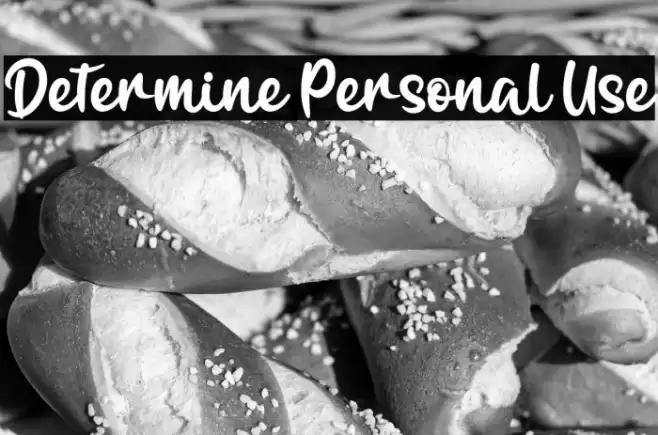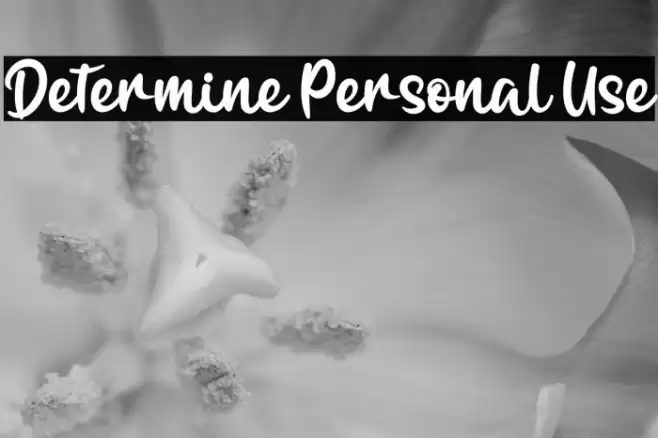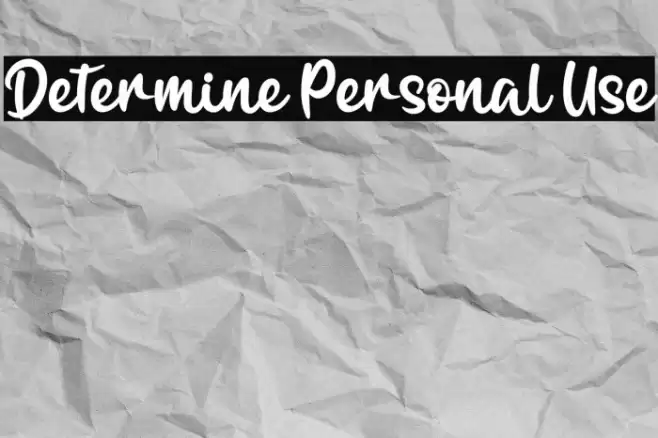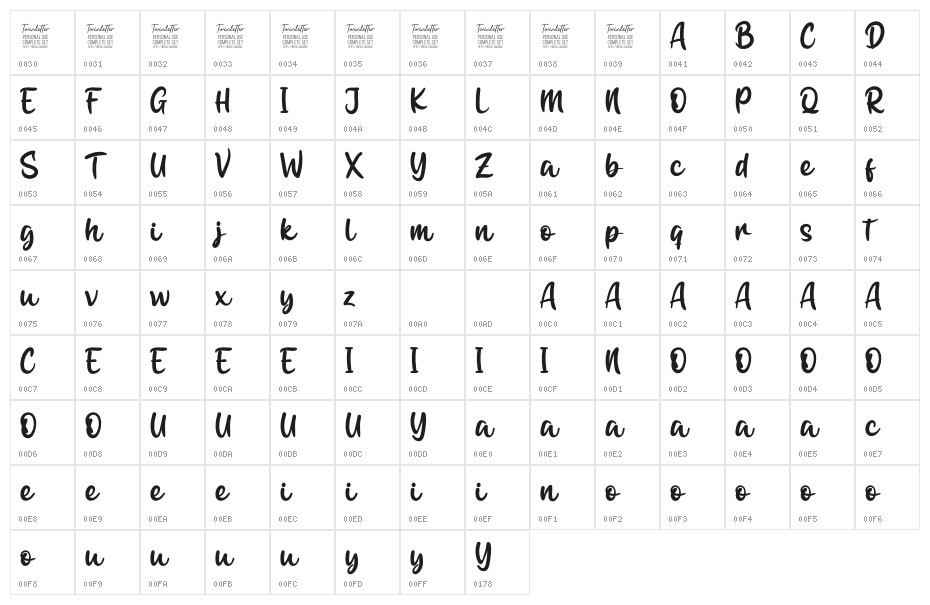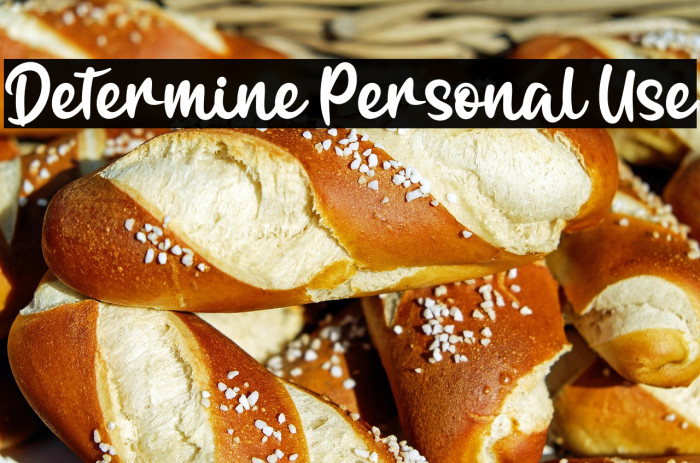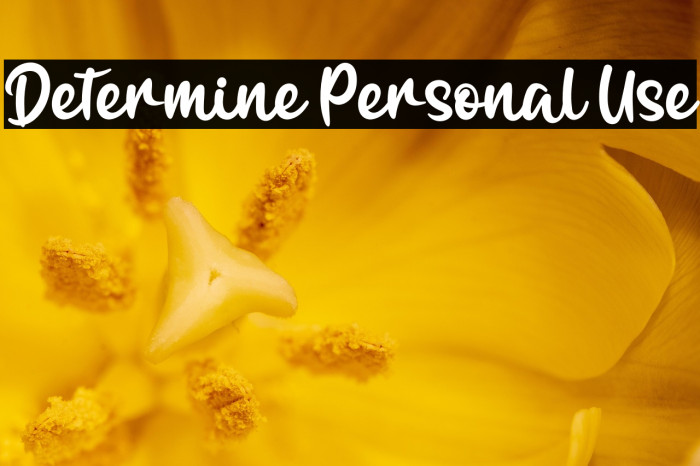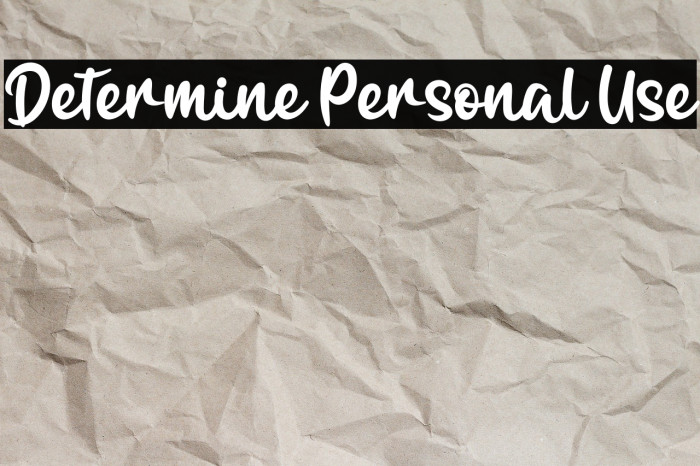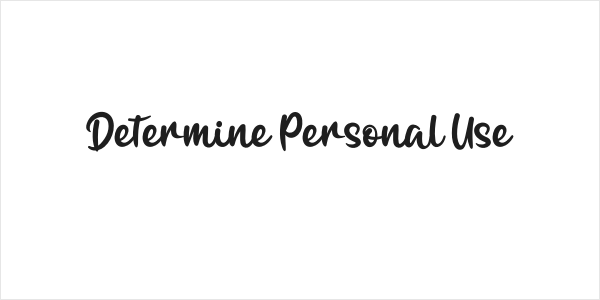
Determine Personal Use Font
Determine Personal Use Description
This font features a bold, flowing script style that exudes a sense of elegance and creativity. The uppercase letters are characterized by their sweeping curves and dynamic strokes, giving them a lively and expressive appearance. The lowercase letters maintain a consistent flow, with rounded edges and a slightly informal touch. This font is well-suited for projects that require a personal and artistic flair, such as invitations, greeting cards, and branding materials. The overall design is both modern and timeless, making it versatile for various applications.
A bold, flowing script font with elegant and dynamic strokes from Uncategorized fonts.
- Proposed Projects: Ideal for invitations, greeting cards, branding, and artistic projects.